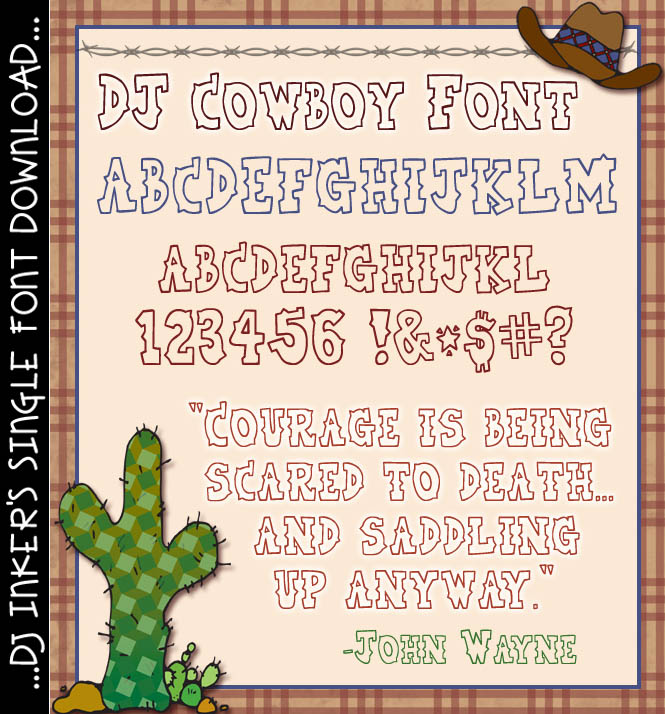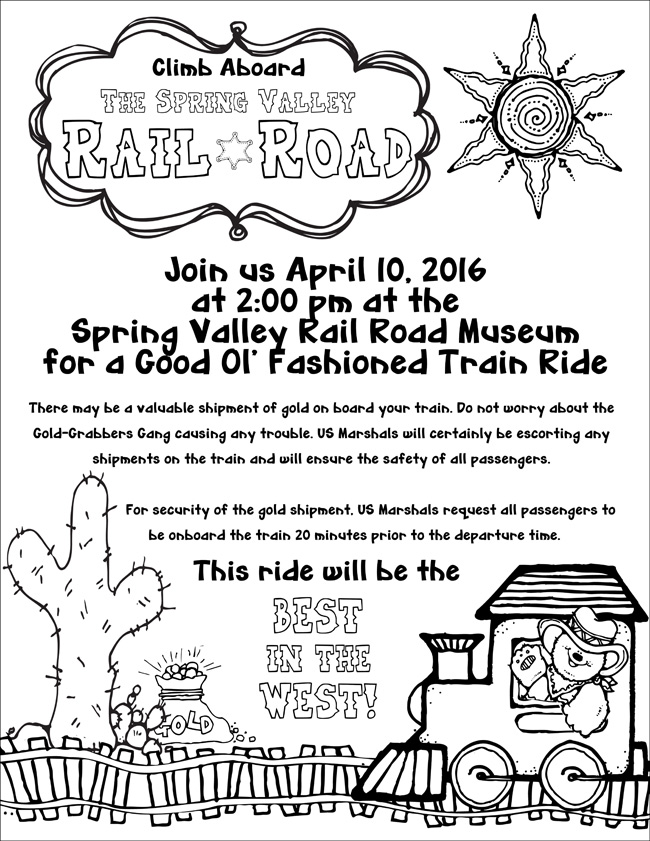
This fun western cowboy font will make you say yeehaw!  -DJ Inkers
DJ Cowboy Font Download
Saddle up & get ready to create some darn cute projects with our DJ Cowboy font! It's downright dandy for cowboy party invitations, campin' & horseback adventures, bedroom or playroom decorations for your little cowboy or cowgirl, rodeo memories & more.